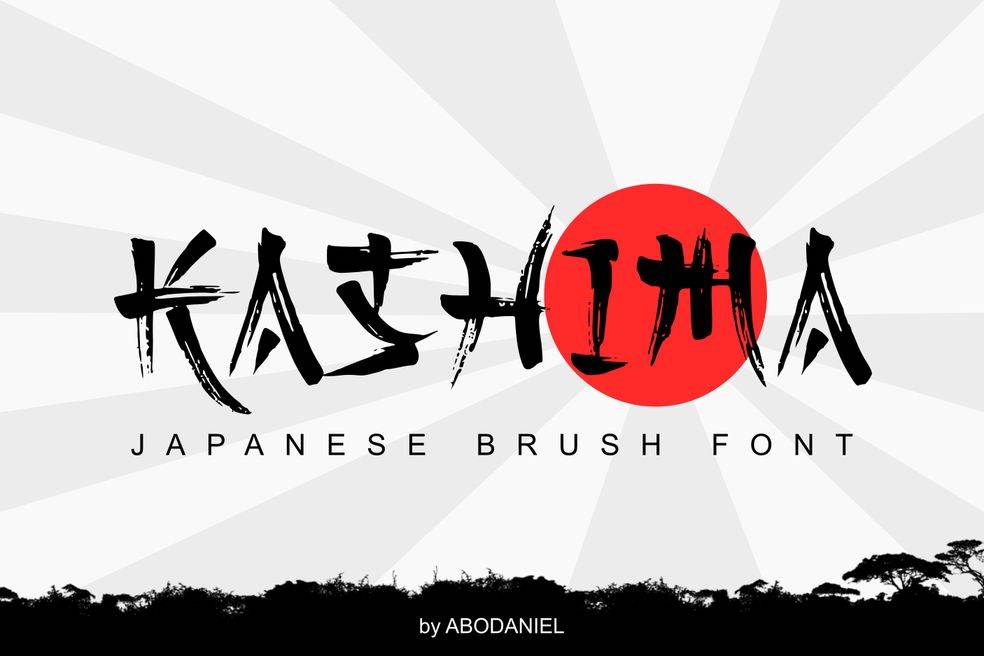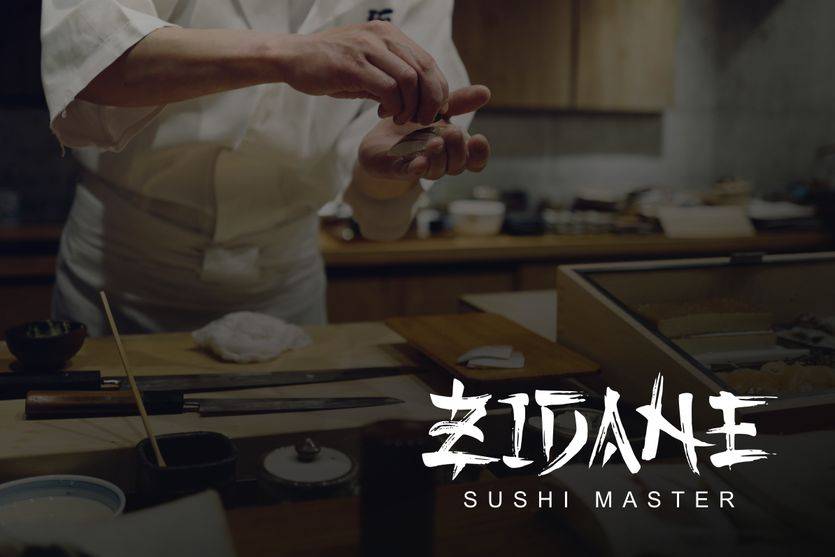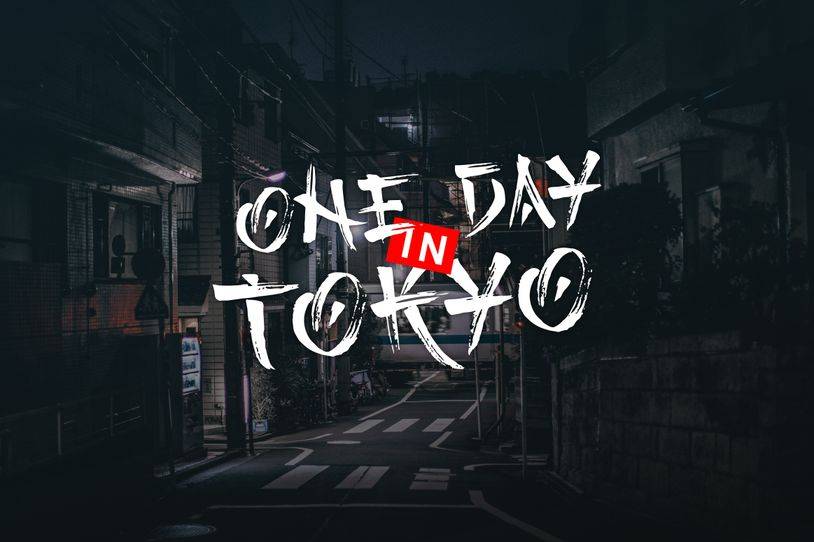
Kashima Brush is a bold and dynamic brush-style font with a rough, textured look that mimics hand-painted strokes. Its sharp angles and irregular shapes create an energetic, edgy feel, making it perfect for designs that want to convey creativity, urban vibe, or artistic flair. This font works well in logos, posters, and headlines where a strong, expressive statement is desired.
Kashima Brush Font
About Kashima Brush Font
| Font family | Kashima Brush Font |
| Designer | Abo Daniel 2019 |